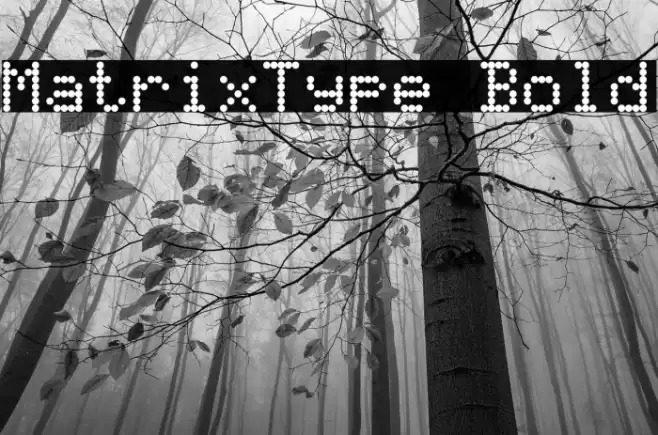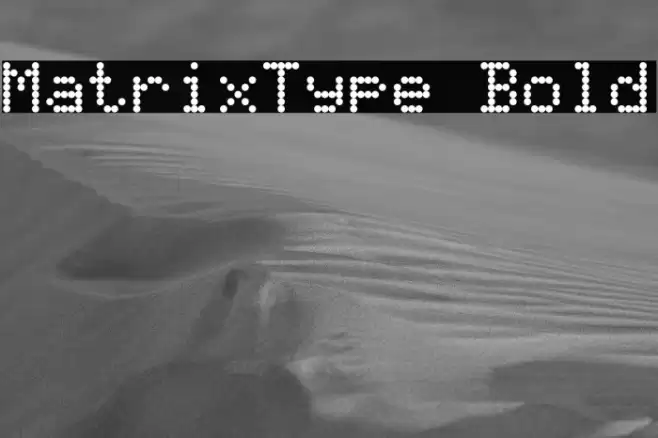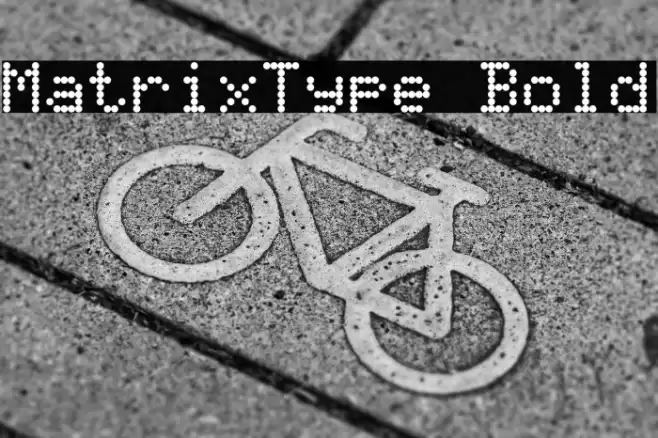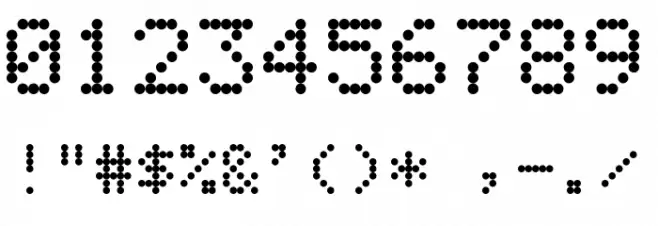
MatrixType Bold Font
MatrixType Bold Description
This font features a unique design composed entirely of small, evenly spaced dots forming each character. The geometric arrangement gives it a digital, retro-futuristic appearance reminiscent of early LED displays or dot matrix printers. The characters are bold and clear, making them easily legible despite the unconventional style. This font's playful yet structured design makes it suitable for creative projects that require a distinctive and eye-catching typeface.
A bold, dot-based font with a retro digital style from Uncategorized fonts.
- Proposed Projects: Ideal for digital art, retro-themed designs, tech-related branding, and creative posters.
- Overall Style: Retro, Digital